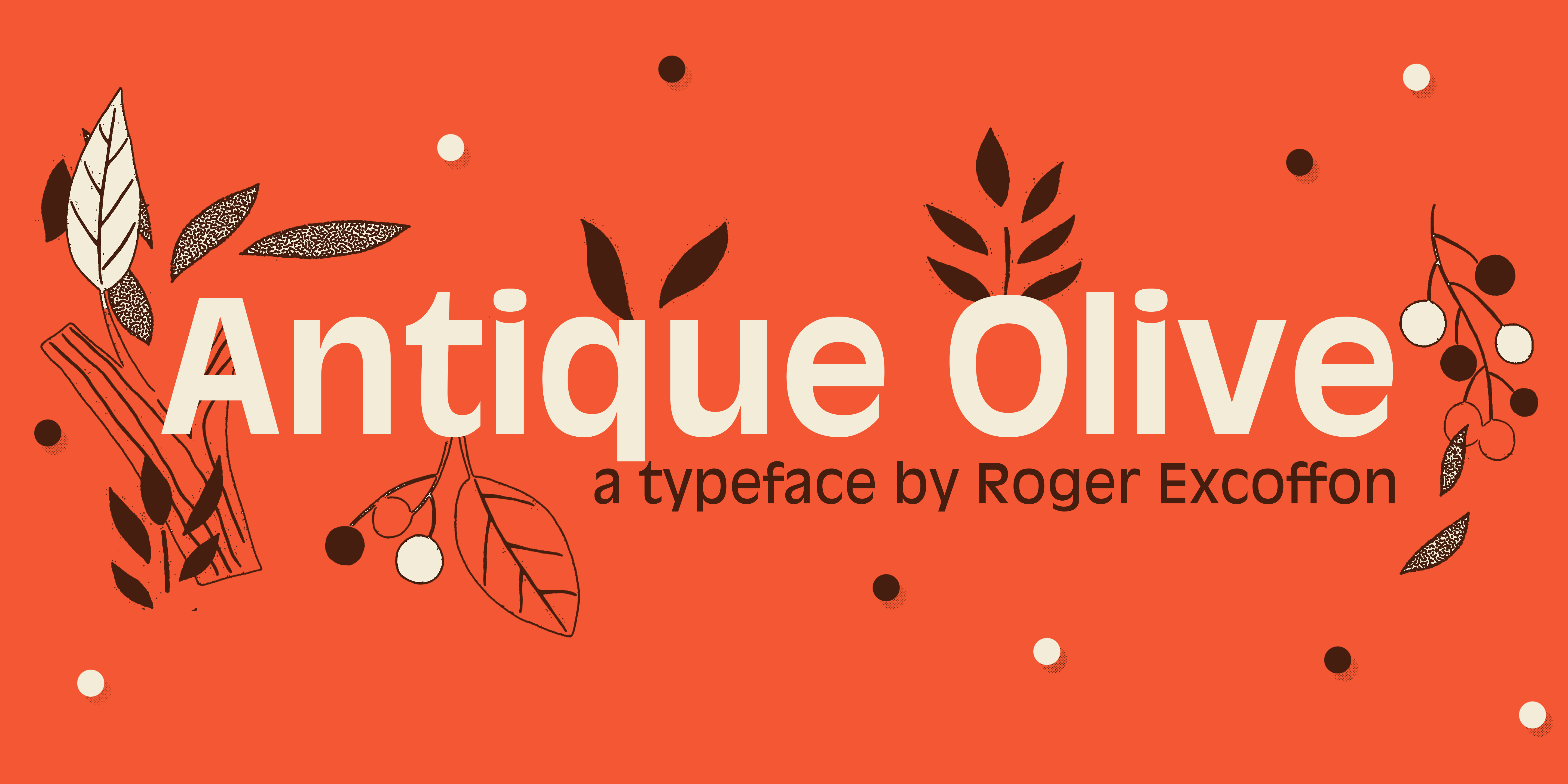
Antique Olive Font Free Download is a distinctive sans-serif typeface designed by Roger Excoffon in the 1960s. Known for its unique rounded shapes and friendly yet professional appearance, this font is perfect for branding, editorial design, signage, and advertising projects that require a bold and approachable look. Its timeless design ensures versatility across a wide range of creative applications.
The soft curves and strong structure of Antique Olive make it stand out from traditional geometric sans-serifs. Its clarity and readability, even at smaller sizes, make it an excellent choice for both print and digital platforms. Antique Olive Font Free Download allows designers to add a touch of personality and sophistication to their projects while maintaining a professional tone.
Available in several styles and weights, Antique Olive provides flexibility to create dynamic and visually engaging designs. Its combination of warmth, strength, and originality makes it a valuable addition to any designer’s font library. Download Antique Olive Font Free Download today and give your creative work a distinctive, timeless character.